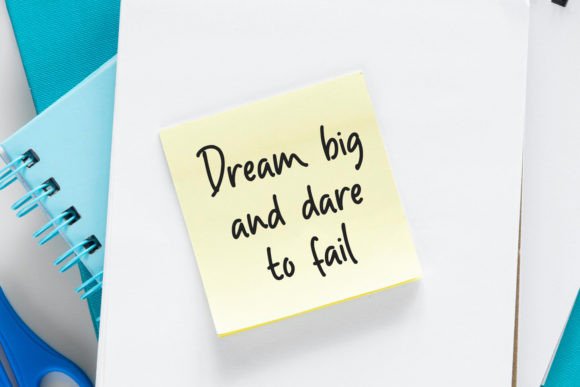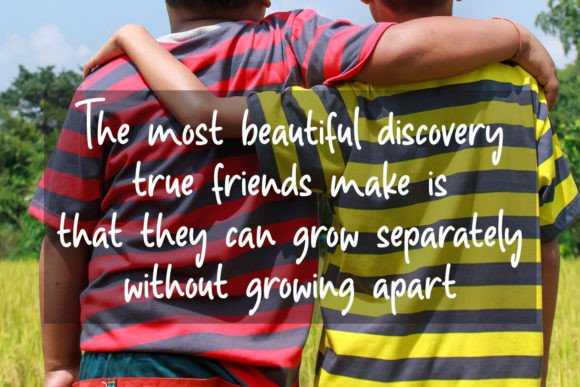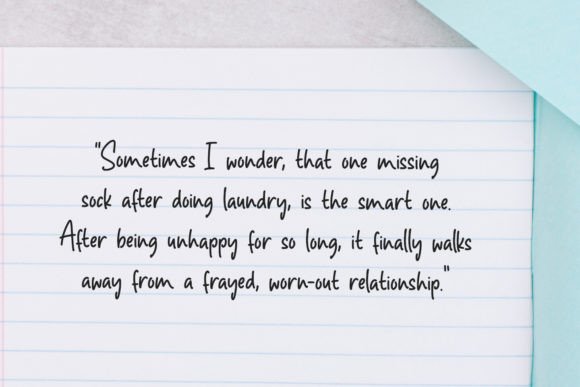
Adding a Personal Touch to Your Designs
Who hasn’t felt a rush of excitement when receiving a handwritten note from a loved one? The scribbled words, the imperfect lines, and the genuine effort that goes into creating something by hand – it’s a feeling that’s hard to replicate with digital tools. But what if you could capture that same warmth and personality in your designs?
Enter the Bestfriend Font, a charming handwritten font that brings a sense of intimacy and friendliness to your projects. This lovely font is perfect for adding a personal touch to invitations, greeting cards, and branding projects that exude coziness and warmth. Whether you’re a designer looking to add a human touch to your work or simply someone who wants to make a lasting impression, the Bestfriend Font is a valuable addition to your design toolkit.
Key Features of Bestfriend Font
- Font Size: The font size is available in 8 different weights, ranging from Light to ExtraBold, providing flexibility for different design needs.
- Unique Characteristics: The Bestfriend Font features a friendly and approachable feel, with rounded edges and a subtle flair, making it perfect for creating a welcoming atmosphere.
- Language Support: The font supports a wide range of languages, including Latin, Cyrillic, and Greek, making it a versatile choice for global designs.
- Scalability: The font is designed to be highly scalable, maintaining its quality and readability even at small font sizes, making it ideal for digital use.
Bestfriend Font Review
As a designer, I was excited to dive into the Bestfriend Font and see what it had to offer. Overall, I was pleased with my experience, but there were some areas where it fell short. ✨
- The Bestfriend Font has a unique, friendly feel to it that makes it perfect for titles and headings.
- The font is highly customizable, with a wide range of weights and styles to choose from.
- It’s a great choice for body text, as it’s clear and easy to read.
- ⚠️ The Bestfriend Font can feel a bit too casual for some projects, making it less suitable for formal or professional applications.
- ⚠️ The font’s high customization options can make it difficult to maintain consistency throughout a design.
- ⚠️ Some users may find the font’s uniqueness to be too quirky or distracting.
Overall, I’d say the Bestfriend Font is a solid choice for designers looking for a friendly, approachable font. While it may not be perfect for every project, it’s definitely worth considering for titles, headings, and body text. With a bit of careful planning, I think the Bestfriend Font can be a great addition to any design portfolio.
Getting the Most Out of Bestfriend Font
For optimal results, use the Bestfriend Font in combination with bold and italic styles to add emphasis and visual interest. Experiment with different font sizes and colors to create a unique and eye-catching design.
The Bestfriend Font is ideal for use in social media graphics, posters, flyers, and other promotional materials. It’s also great for creating invitations, party decorations, and other celebratory designs.